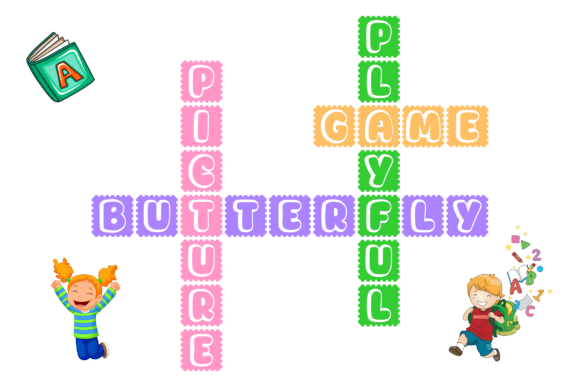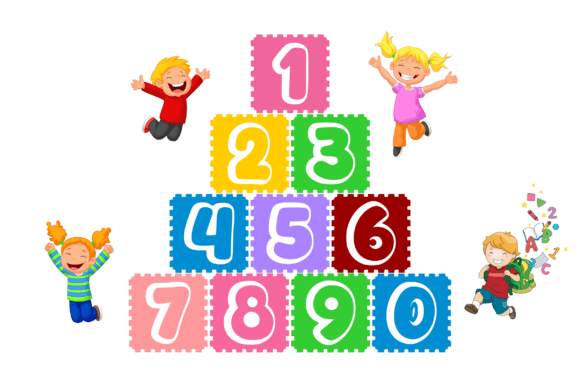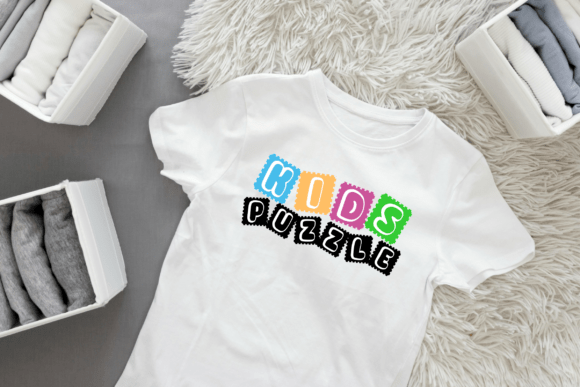
Introduction to Kids Puzzle Font
Remember the moment when you were brainstorming for your child’s birthday party, and you wanted to create the perfect invitation? You sat in front of your computer, surrounded by colorful papers, stickers, and markers, trying to come up with the most creative design. That’s when you stumbled upon the perfect font – the Kids Puzzle Font. Its enchantingly playful letters will transport your designs to a world of wonder and magic.
As a designer, you’re always on the lookout for unique design resources that can elevate your creative project. The Kids Puzzle Font is a high-quality addition to your collection, offering a contemporary touch that’s perfect for a variety of applications – from t-shirt designs to comic titles, and from tote bags to animations. Its transparent background makes it easy to work with, allowing you to customize it to fit your needs.
Key Features of Kids Puzzle Font
- High-quality, playful design suitable for a creative project targeting children.
- Comes with a transparent background, making it easy to use with any image or design.
- Includes a range of puzzle pieces in different sizes, allowing for flexible design options.
- Unique characteristics: custom illustrations, fun and colorful design elements, and a child-friendly aesthetic.
Honest Review: Kids Puzzle Font
I recently stumbled upon the Kids Puzzle Font, and I must say it’s a high-quality addition to any creative project. The transparent background makes it easy to overlay on top of images or other design elements, giving you endless possibilities.
This free download has been a game-changer for me, and I can see it being a valuable design resource for many others. The font is playful, yet easy to read, making it perfect for kids’ educational materials, games, or even marketing campaigns.
What works well: ✨ The font’s versatility, ✨ the clear and simple design, and ✨ the fact that it’s a free download, making it accessible to designers of all levels.
However, I did encounter a few limitations: ⚠️ The font’s size may be too small for some applications, ⚠️ and it’s not suitable for formal or professional use. Additionally, the font may not be as customizable as some other design resources.
Overall, I’m impressed with the Kids Puzzle Font. It’s a great addition to any designer’s toolkit, and I’m excited to see how it will be used in future projects.
- Playful and easy-to-read design
- Perfect for kids’ educational materials, games, or marketing campaigns
The Kids Puzzle Font is a high-quality design resource ideal for creative projects, especially those requiring a fun and playful touch. This font features a transparent background, making it easy to use in various design applications.
The Kids Puzzle Font is perfect for:
- Children’s book covers and illustrations.
- Education and learning materials.
- Fun and playful social media graphics.
- Party invitations and decorations.
Getting the Most Out of Kids Puzzle Font
To get the most out of the Kids Puzzle Font, experiment with different font sizes, colors, and combinations to create unique and engaging designs.